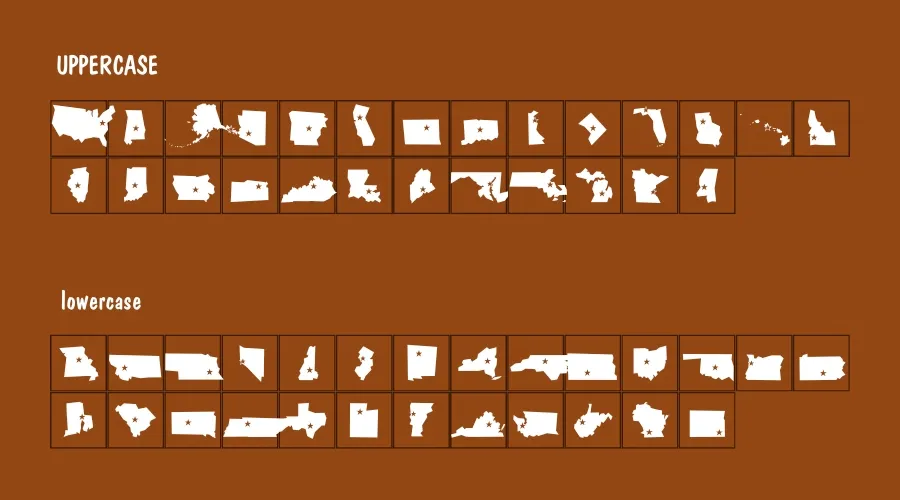
Mini Picsborderline Capital Font
About Mini Picsborderline Capital Font
Mini Picsborderline Capital Font is designed by well-known creative designer Brian Miller. The typeface features unique symbols that are ideal for creating stand-out designs.
With this typeface, your content will look amazing. This font can be utilized with oriental view font and make attractive designs. This typeface has a dingbat’s contemporary style that will add sophistication and professionalism to any project.
Adding this typeface to your design can help you to make it more noticeable in front of the clients. For instance, the Rough Calligraphic Frames Font is a fantastic option to pair with it.
Several design projects can be created with this style, such as websites, promotional materials, and logos, can be done with this typeface. It is a sophisticated and flexible typeface that may add brightness and professionalism to any project. A typeface is a fantastic option for your work whether you are producing printed art books or digital graphics.
Any developer who wishes to give their work class and elegance should choose this typeface. It is the ideal option for a range of designs because of its unique, contemporary design and unclear glyphs. So, if you want your work to stand out, use this typeface.
It has a specific, design without upper and lowercase characters the design is not visible to readers. This text style may be used by designers to create e-book covers, headers, branding ideas, business cards logo, apparel plans, prints, boundary wall paintings, catalogs, posters, advertisements, and much more.
Who designed the Mini Picsborderline Capital typeface?
Mini Picsborderline Capital typeface is designed by well-known creative designer Brian Miller.